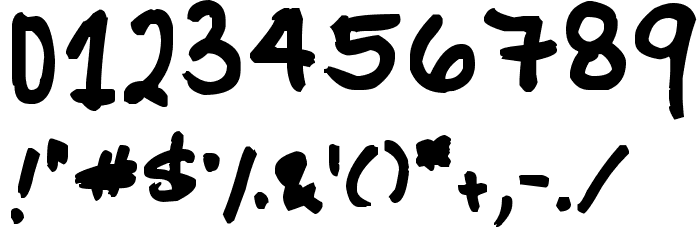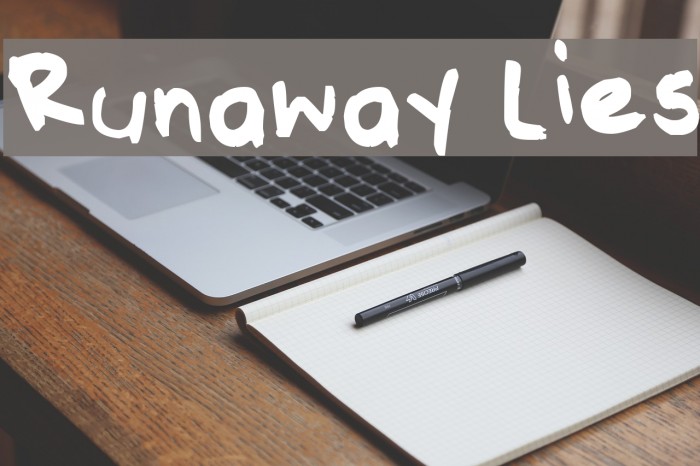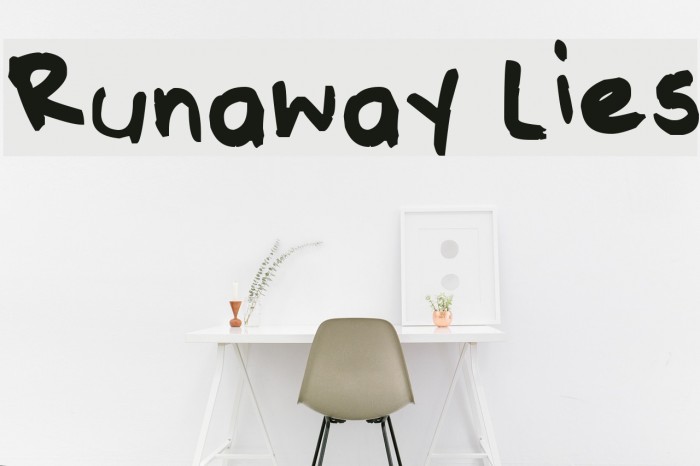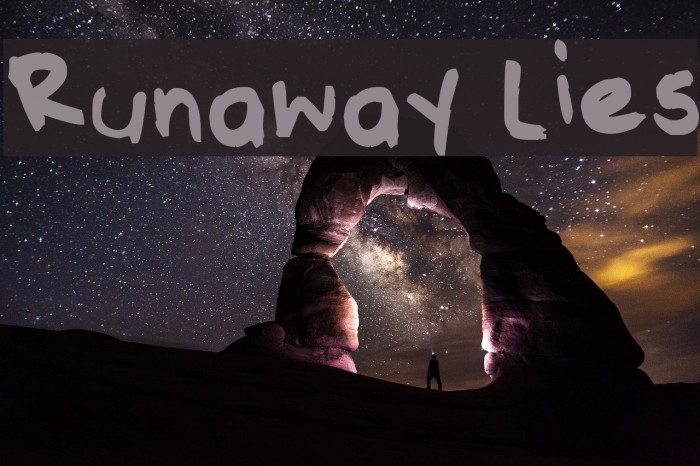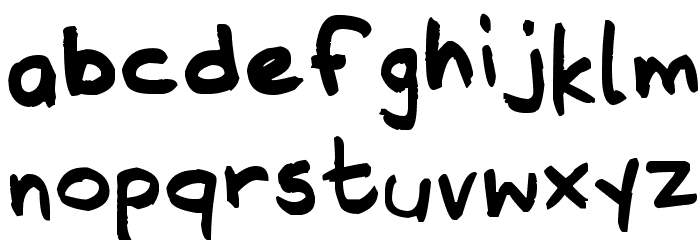
Runaway Lies Font
This font features a playful and informal handwritten style, characterized by its uneven strokes and slightly irregular letterforms. The uppercase and lowercase letters maintain a consistent, casual appearance, with a slight tilt that adds to its dynamic feel. The numbers and special characters follow the same whimsical style, making it suitable for creative and informal projects. The overall look is approachable and friendly, with a touch of spontaneity that can bring a personal touch to any design.
A playful, handwritten font with uneven strokes and a casual style.
• Proposed Projects: Ideal for greeting cards, children's books, casual branding, and creative posters.
• Category: Handwritten
• Overall Style: Casual, Playful
• Use Case: Headlines, Informal text, Creative projects